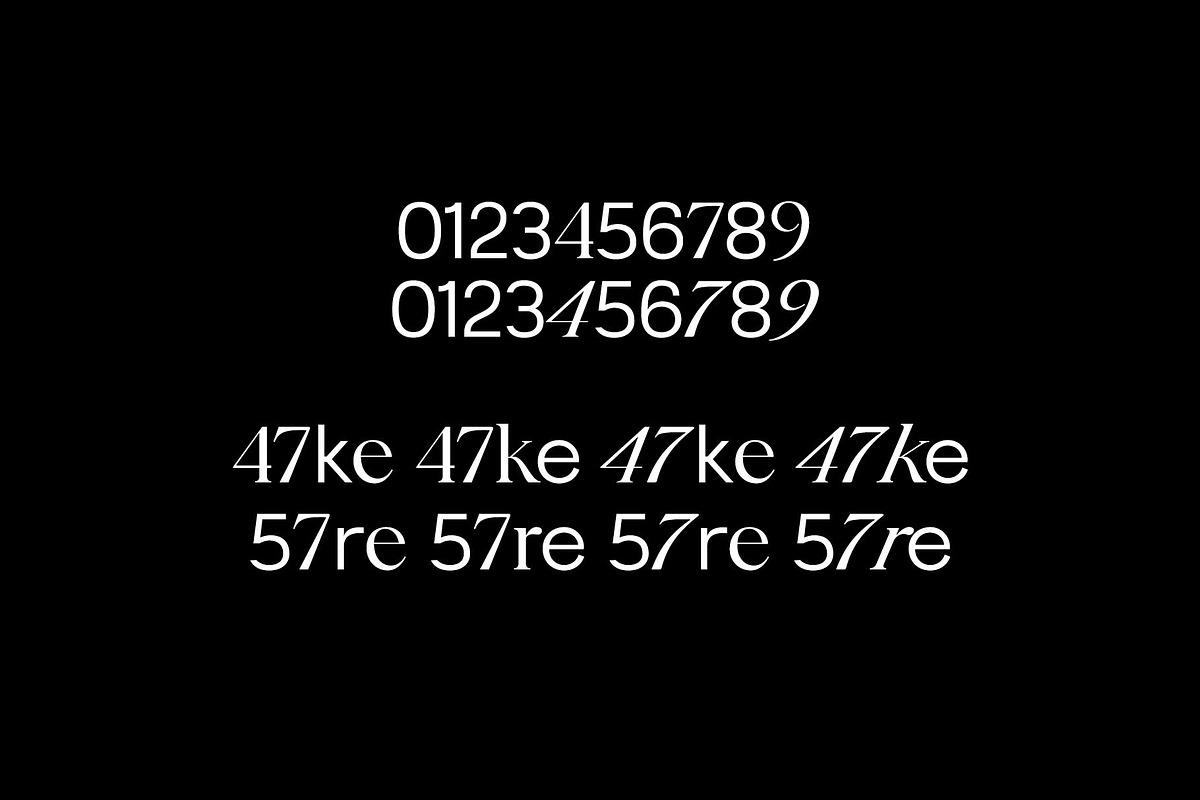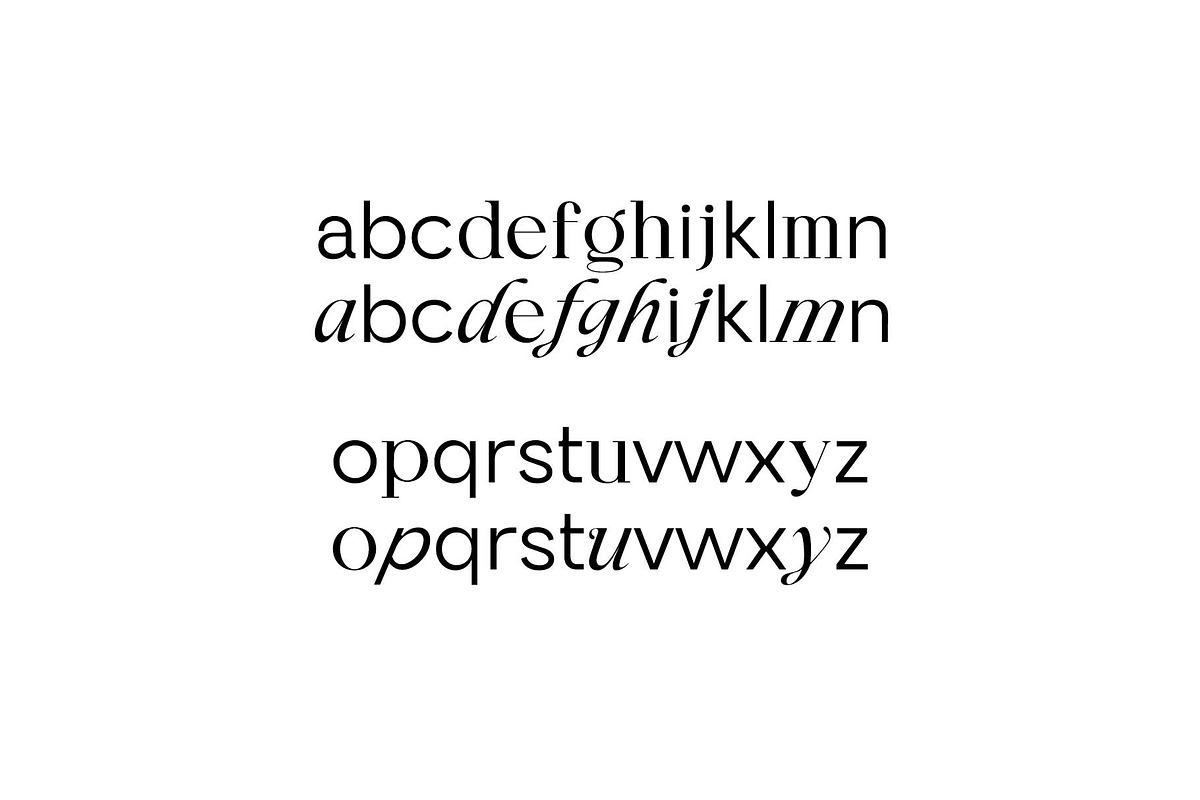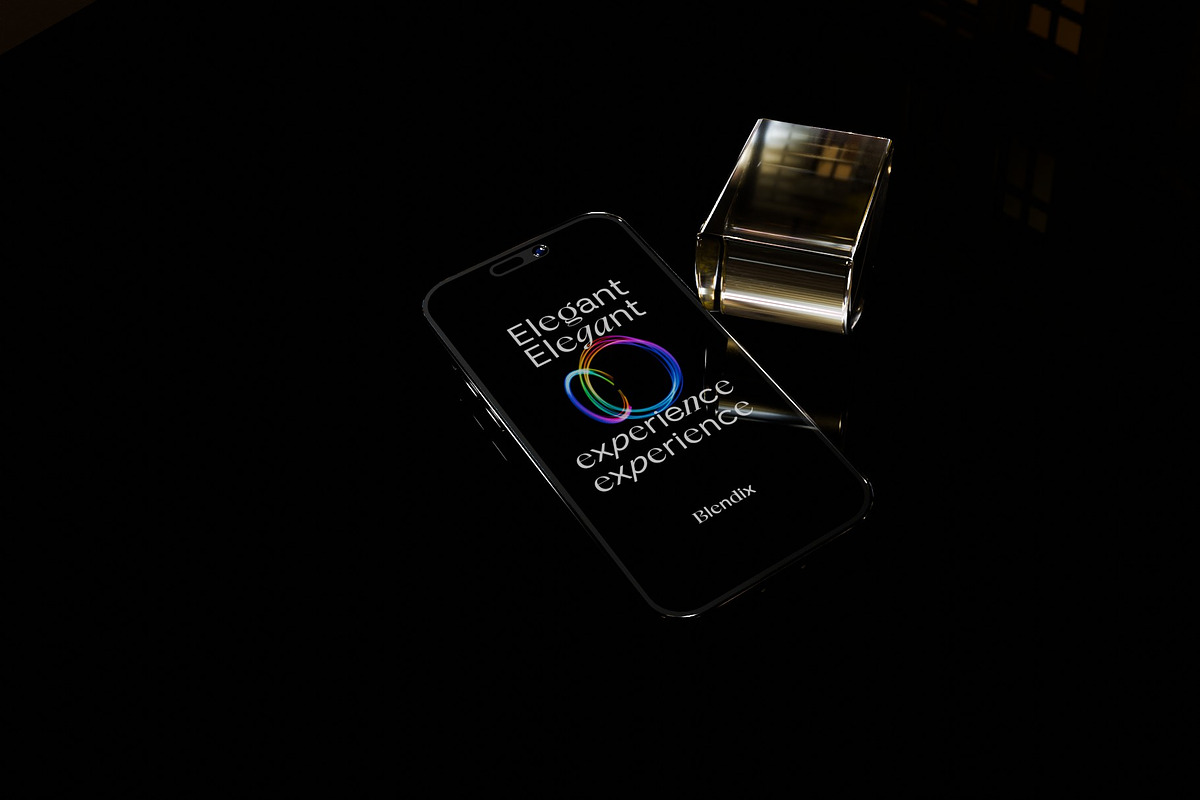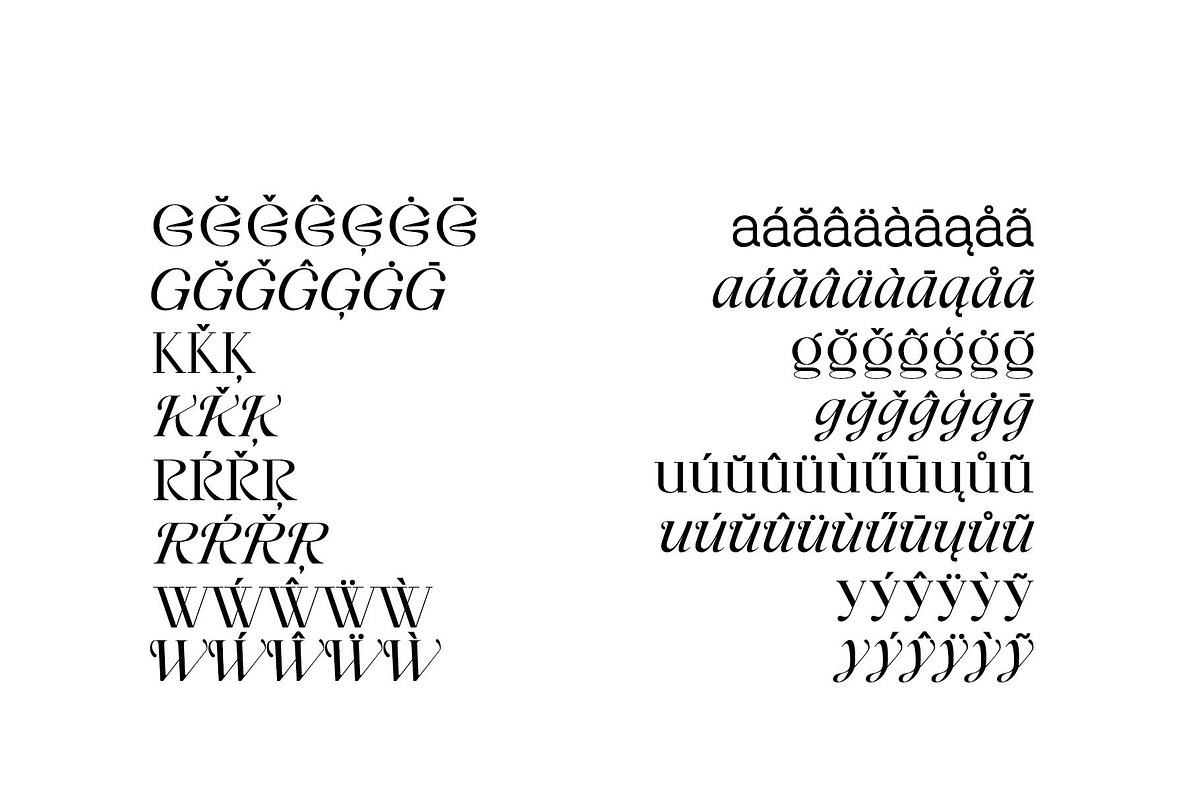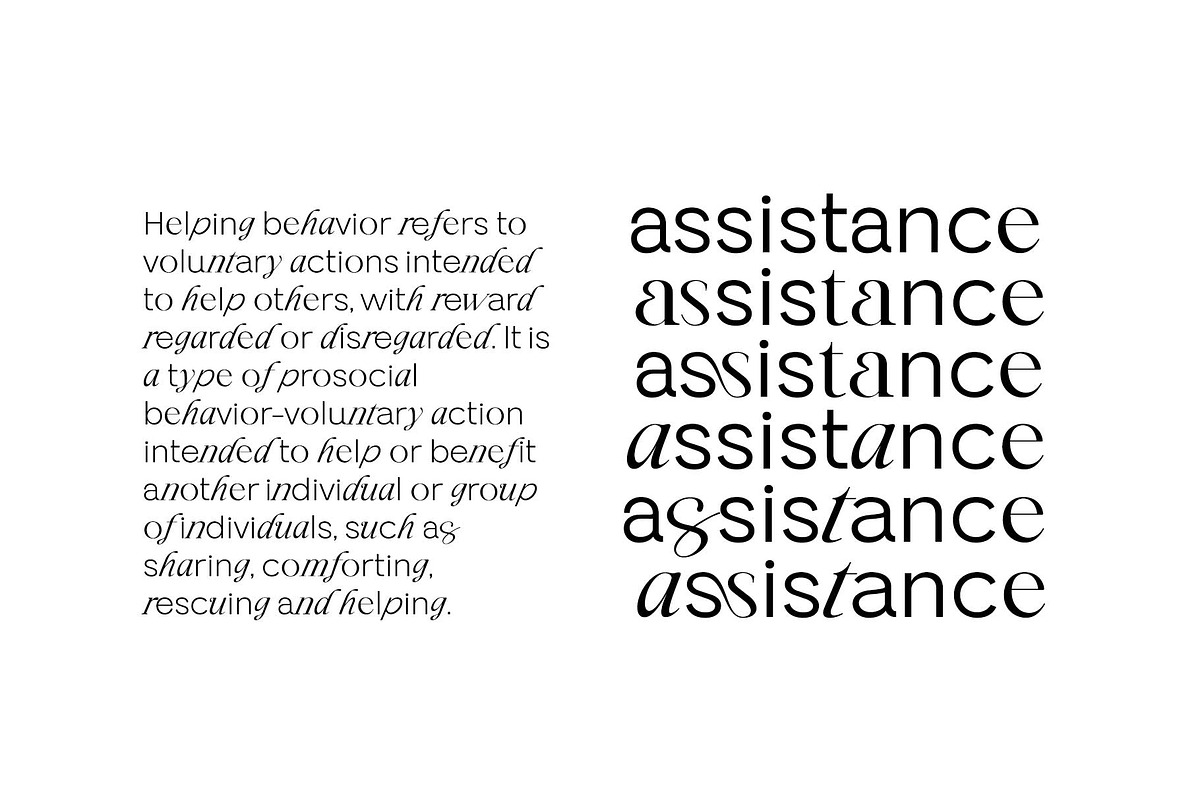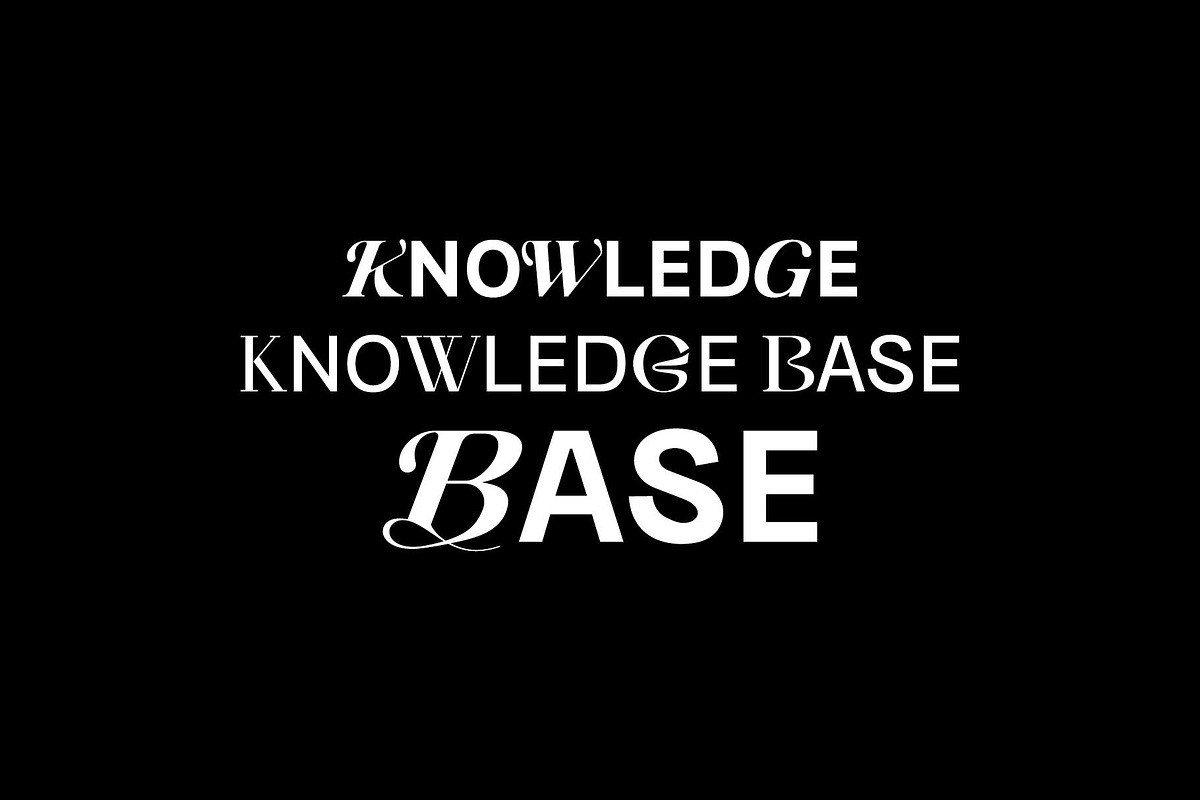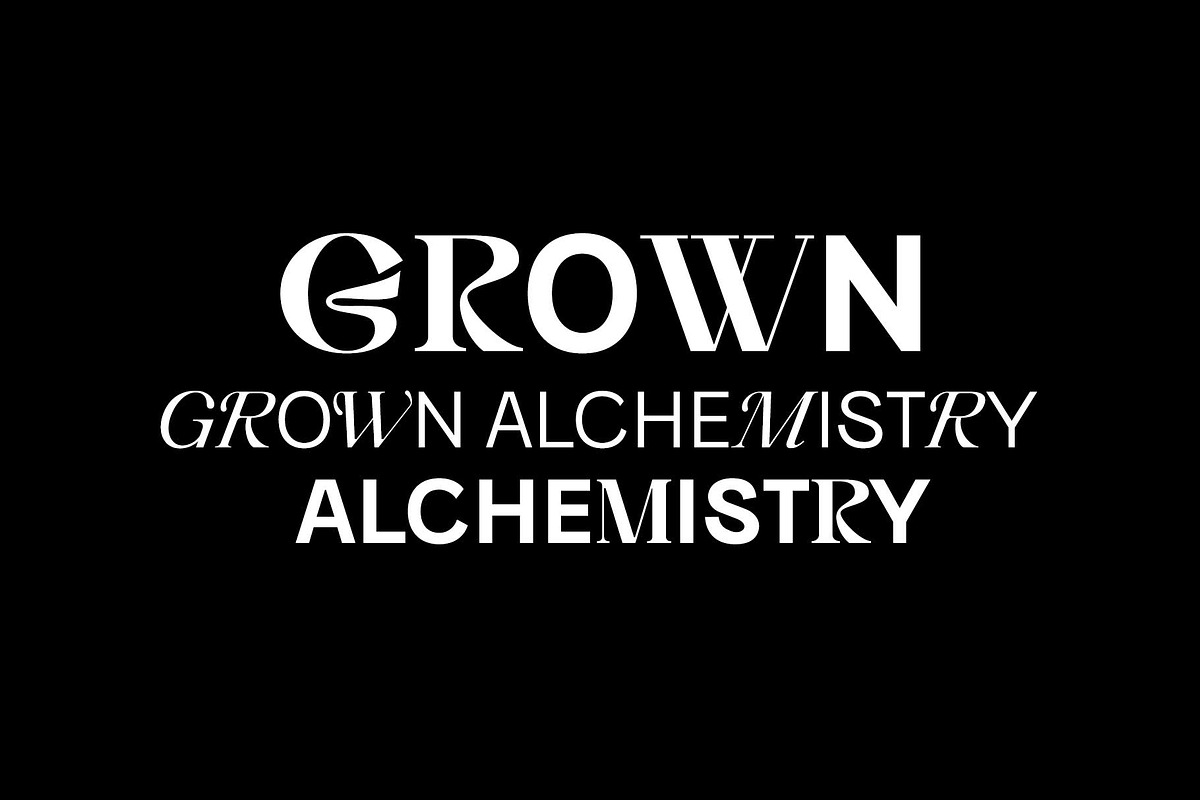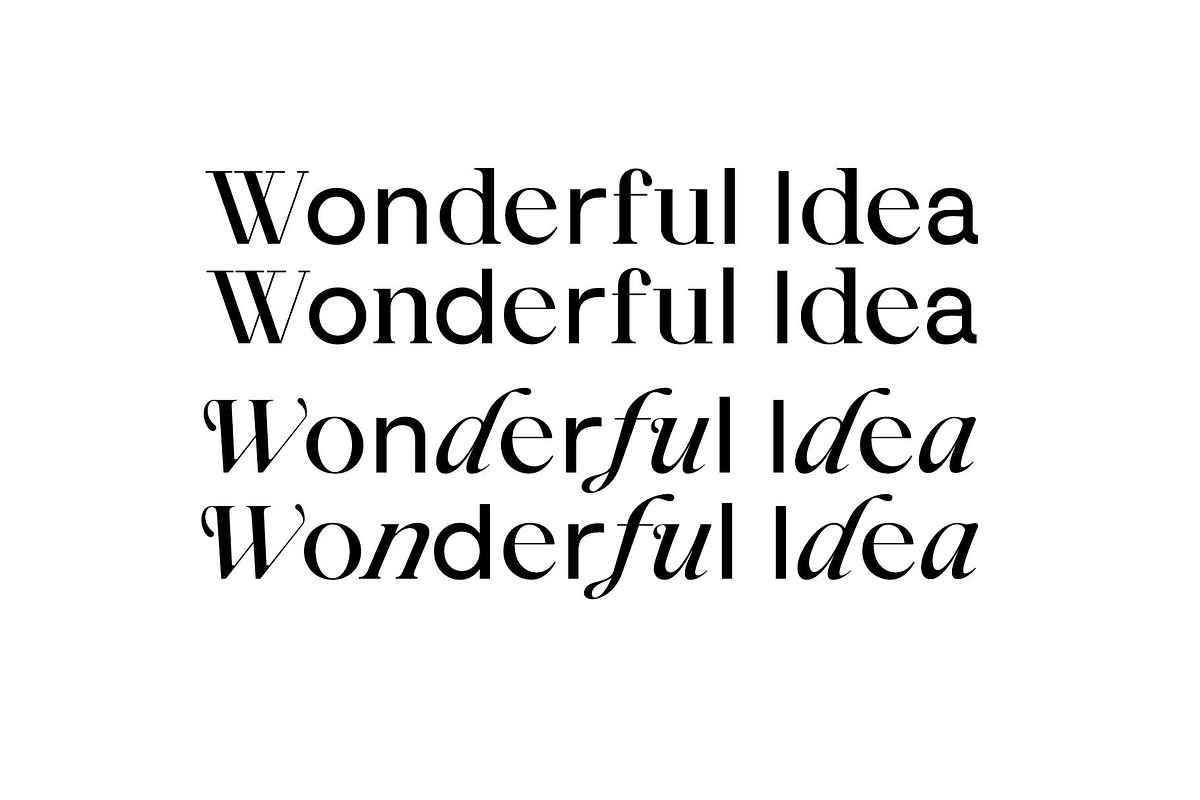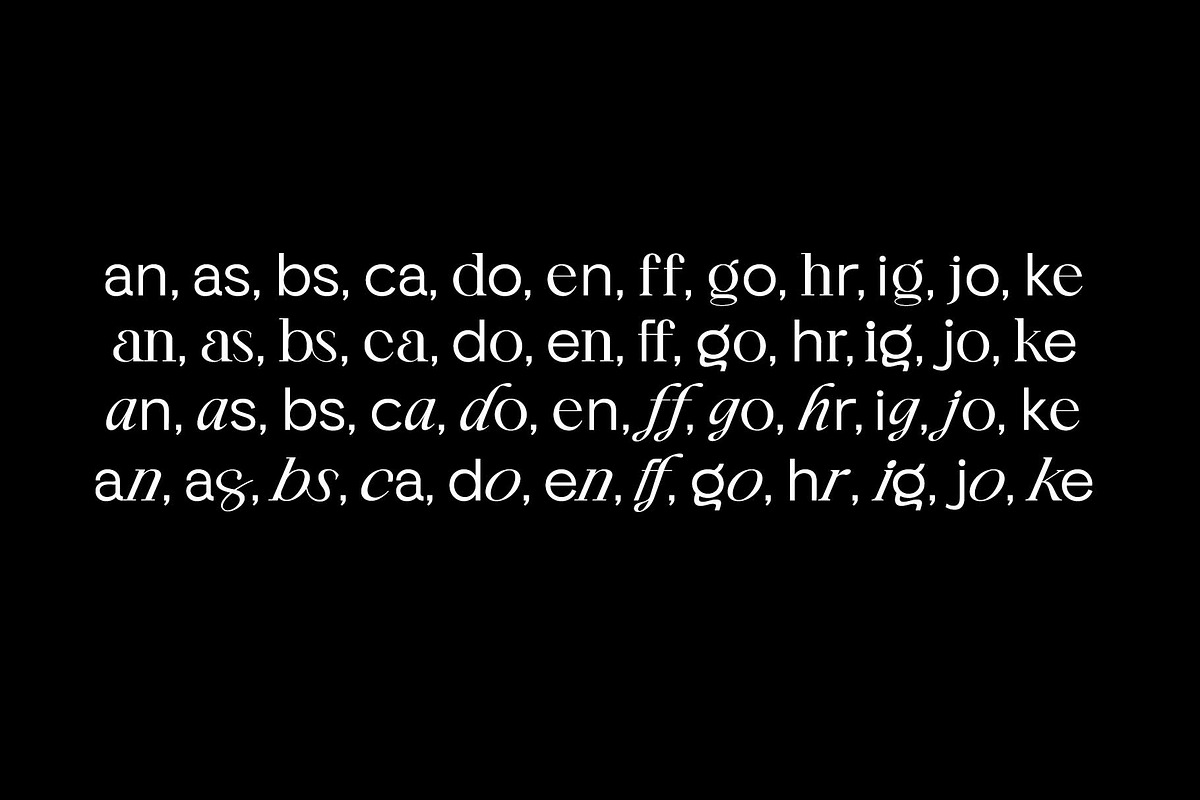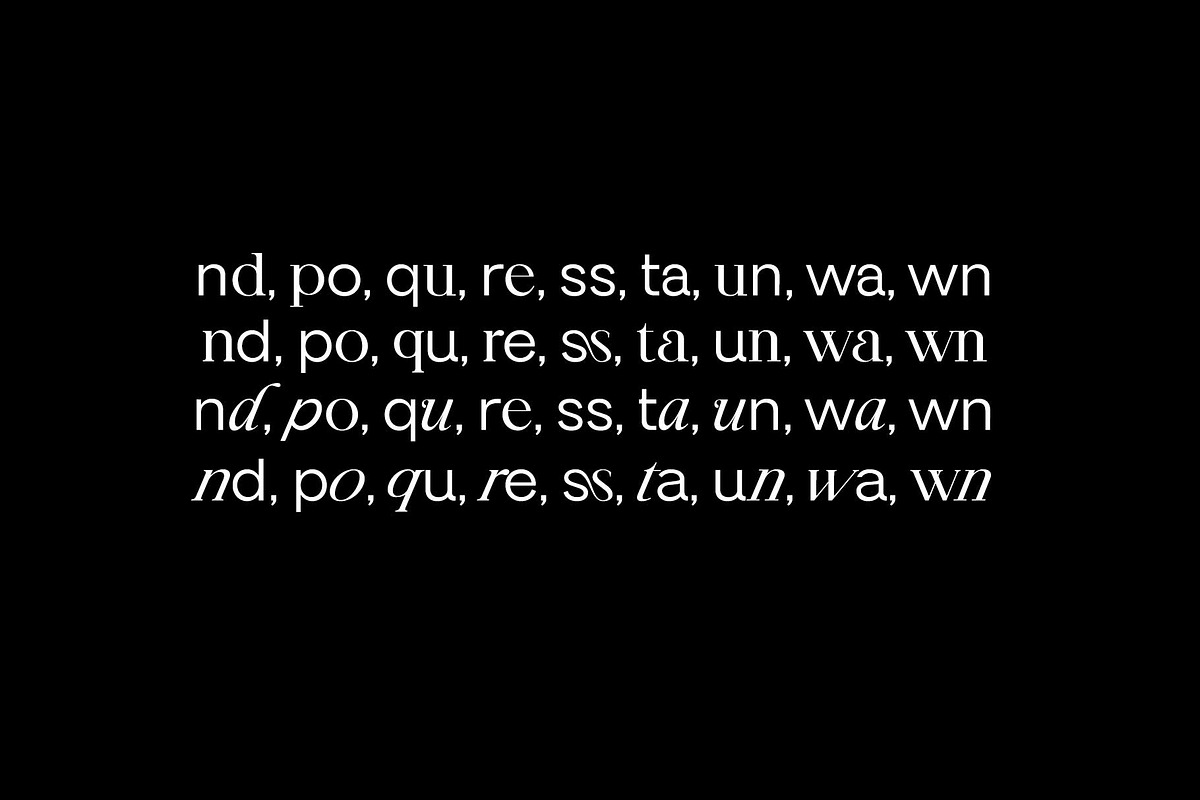
Blendix
Blendix - Mix and Match Edition for ProfessIonal Designers.
We decided to take on this experimental yet radical challenge for a mix-and-match pairing that requires artistic creativity and software precision.
To reduce the unfamiliar feeling caused by pairing, the geometric sans and display serif were mixed, the vertical metrics were unified, and the contrast of the glyphs was adjusted.
And, through the transformation of the glyphs, the opportunities for designers to choose were expanded, and the kerning for the 21 ligatures was also refined.
The variations in the fonts you see above are due to ligatures being activated. If you want to know more about the OpenType Features supported by these fonts, you can see the link here.
Ligatures : an, as, bs, ca, do, en, ff, go, hr, ig, jo, ke, nd, po, qu, re, ss, ta, un, wa, wn